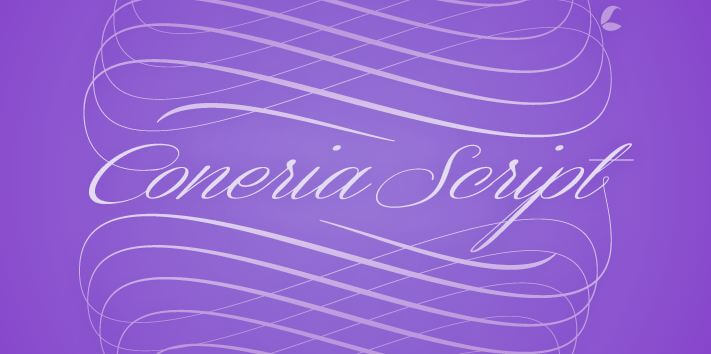
Coneria Script is a calligraphy script font that becomes designed by using men greenback a Swedish famous kind designer. This font is similar to berlin font exmouth has obtained many special textual glimpses and high-grade decipherability.
A nice option for designing trademarks, website headers, and flyers for pricey and excessive-quit producers. The font includes all-caps letters along with punctuations and numbers.